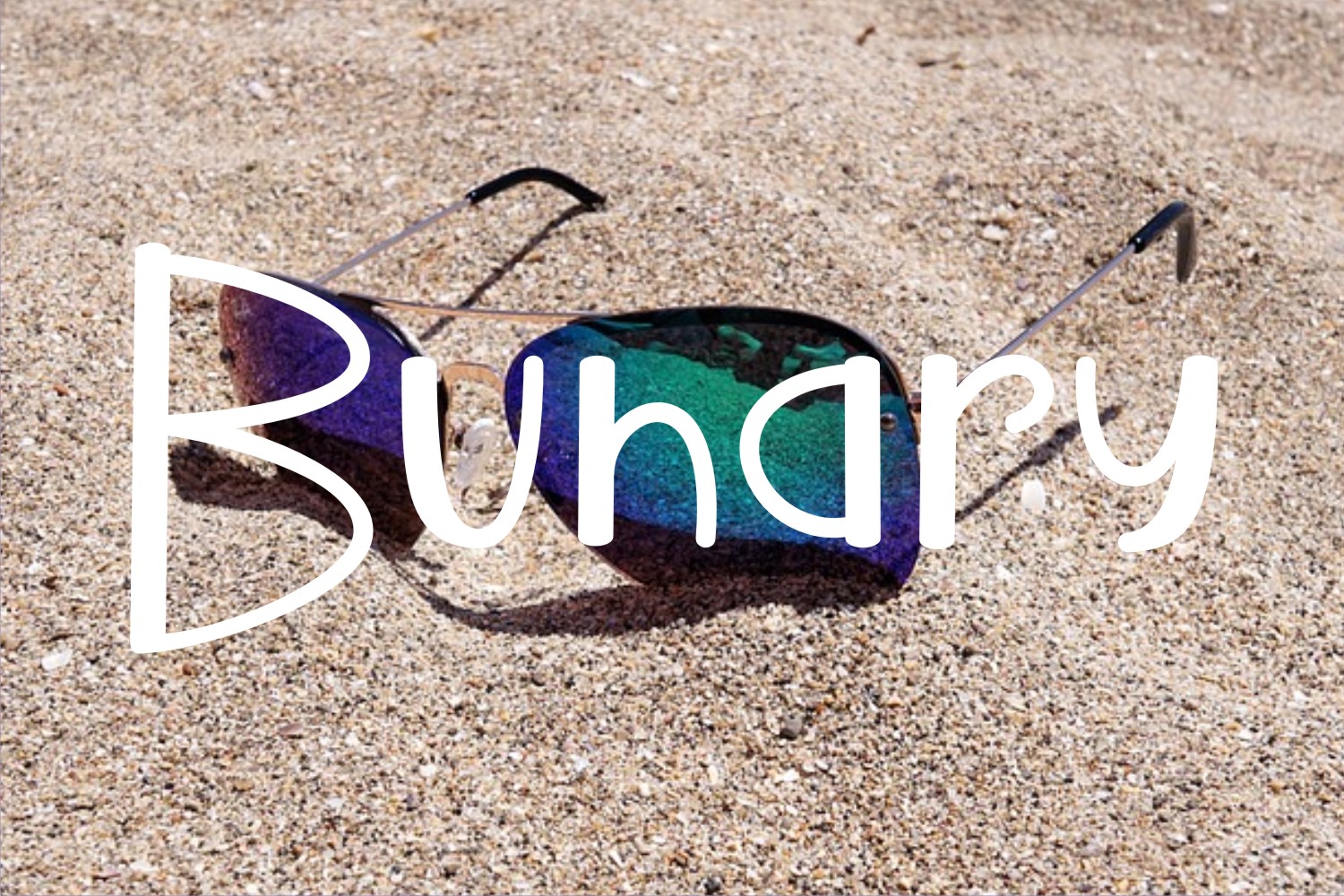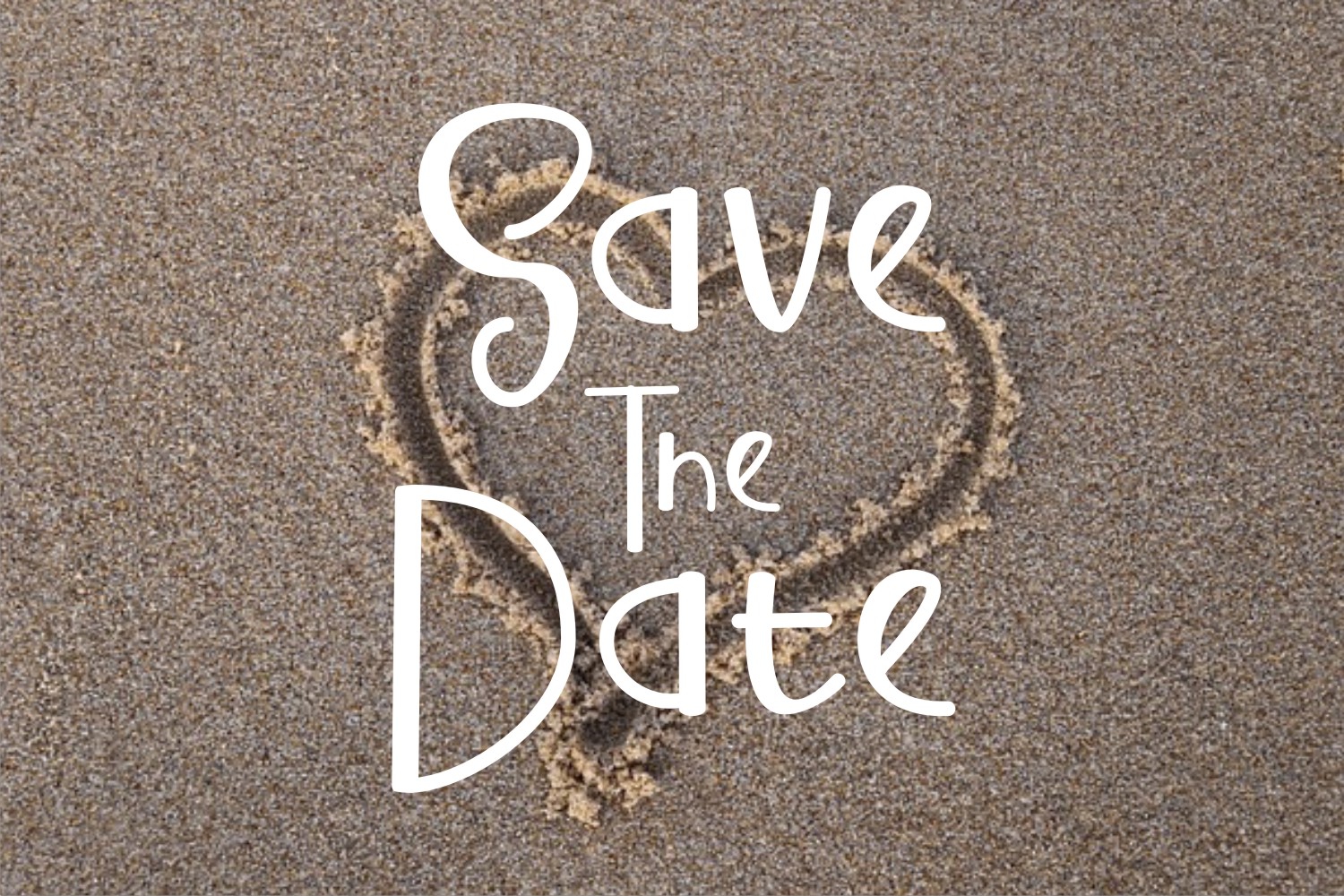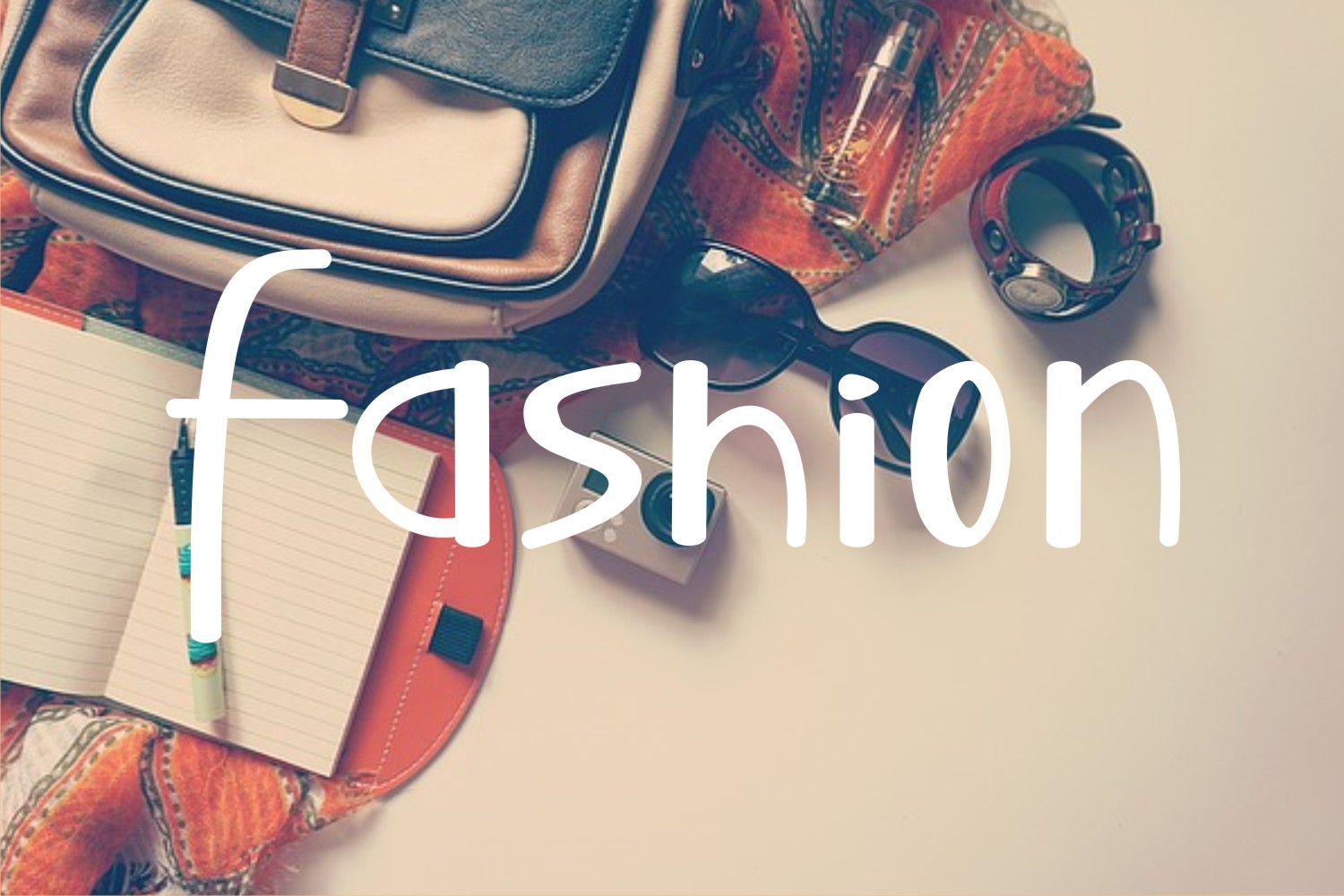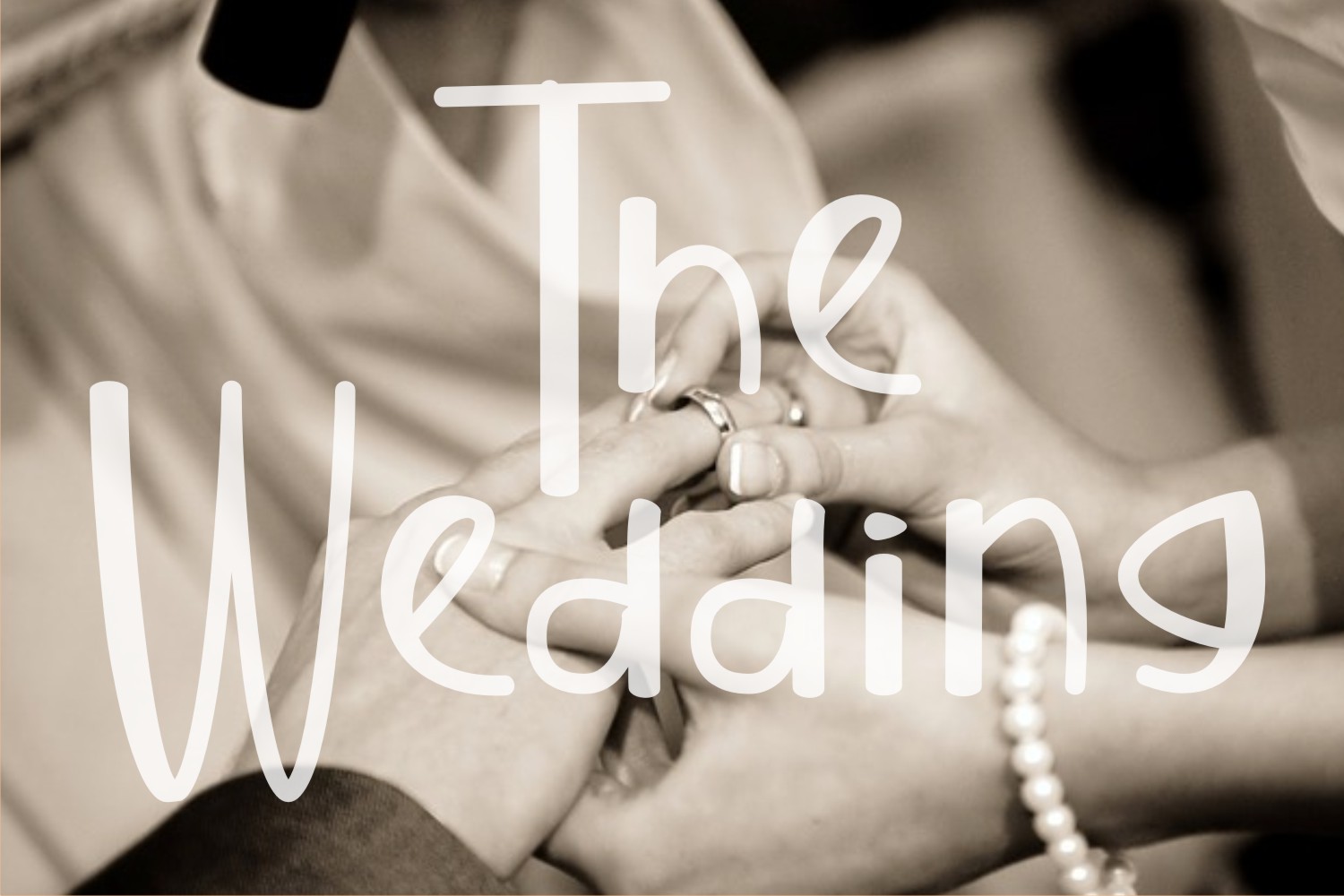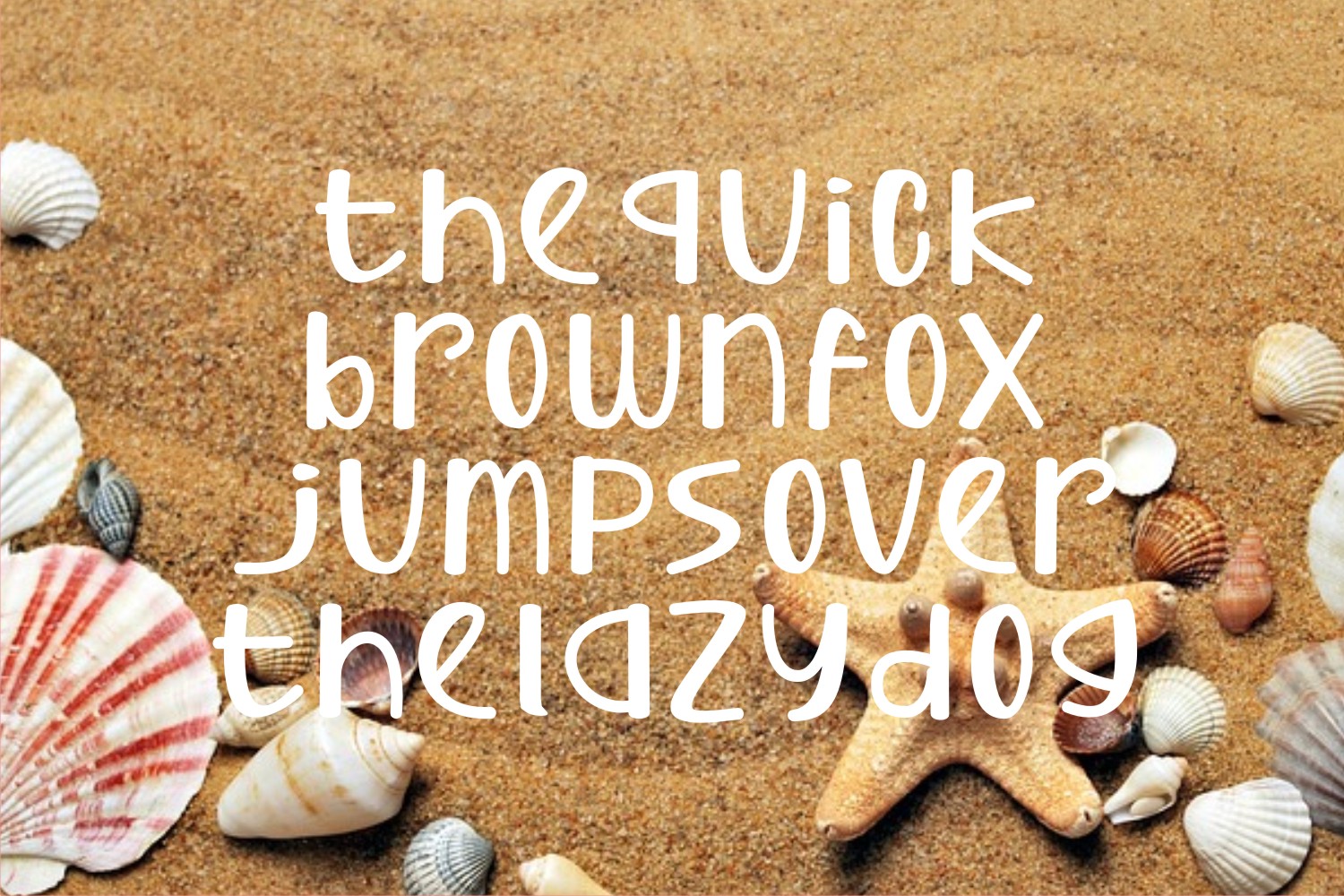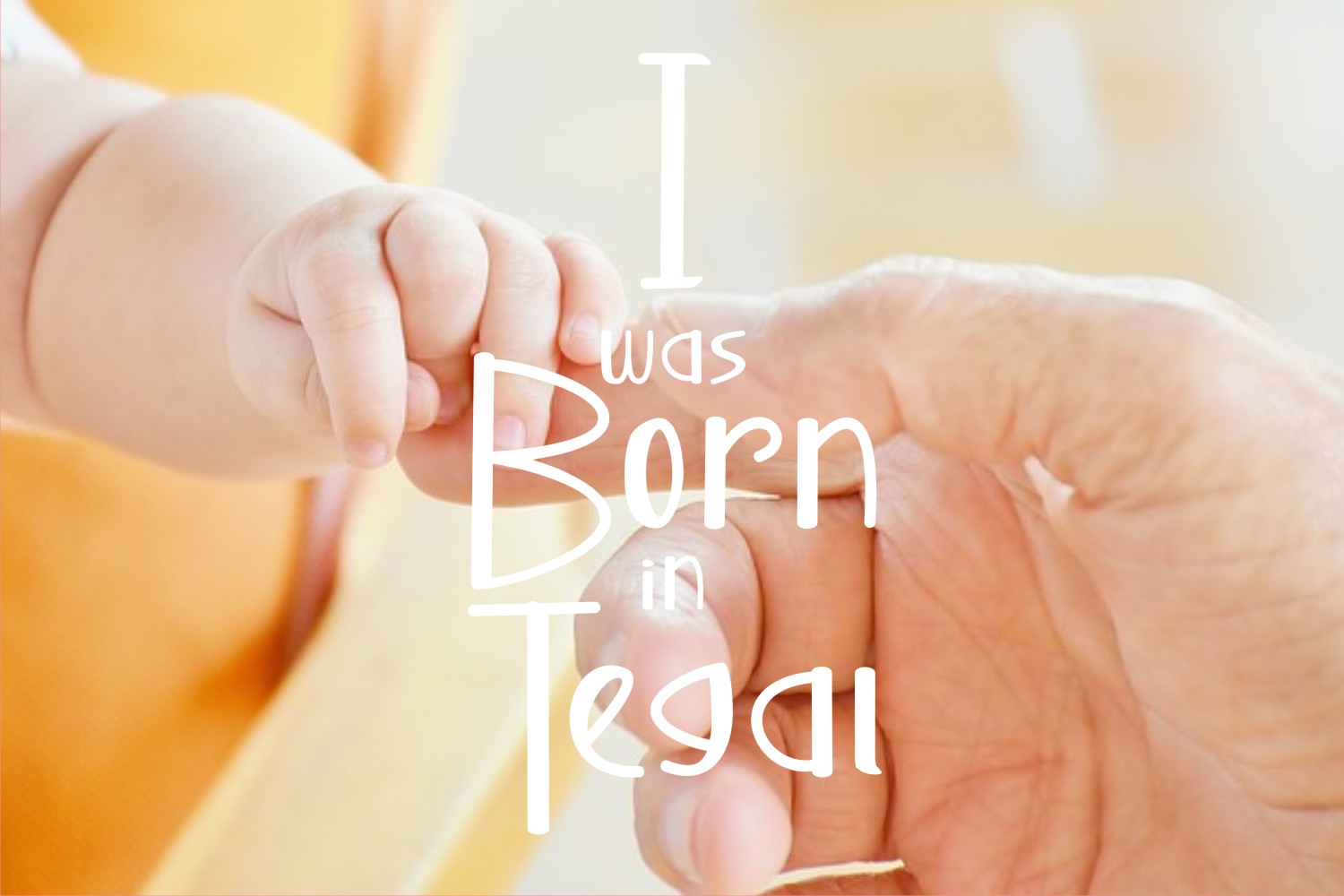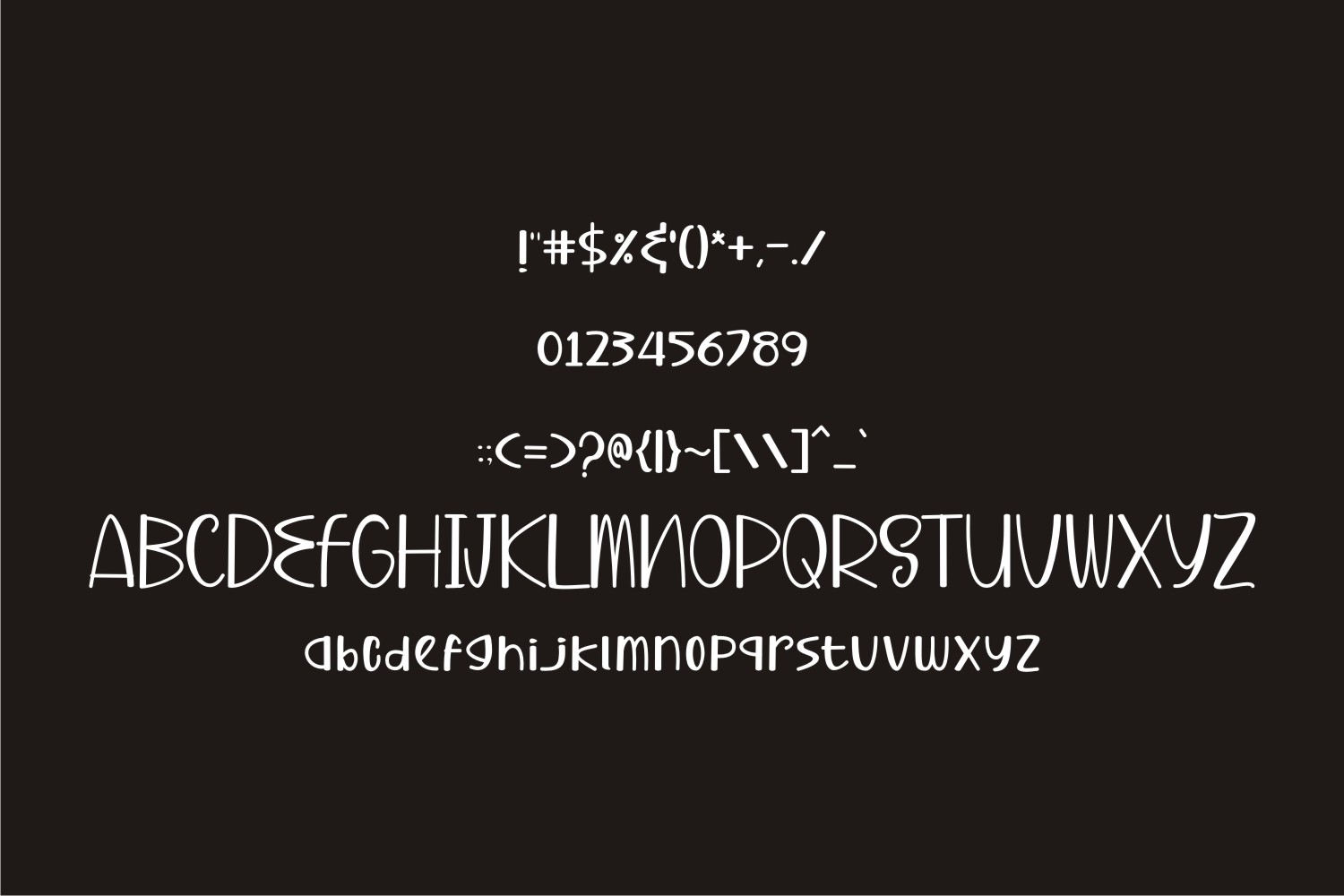
Buhary Font
About Buhary Font
Buhary is a cute and bubbly script font, styled in a sans serif manner with a variable baseline. This is a font that is well suited to a large range of designs, and is extremely legible and appealing.